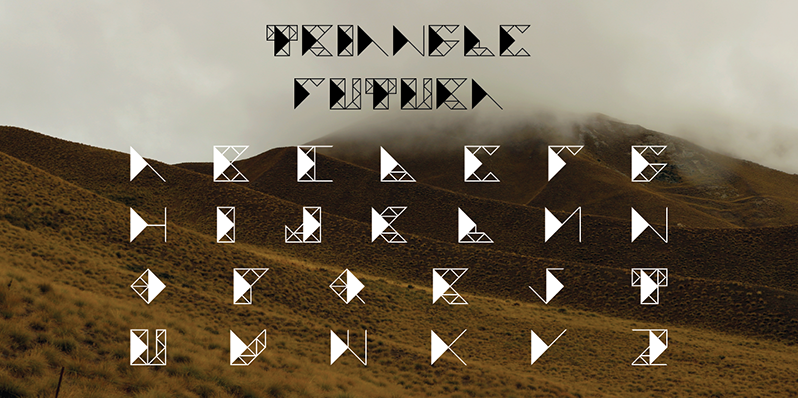
Preview and download Triangle Futura Font. Created by Stefano Chies in Techno Various styles with Free for personal use license.
Triangle futura typeface was designed with the idea on keeping the central triangle constant while the letters begin to take different shapes while browsing This typeface is perfect I guess for a video clip. USER LICENSE AGREEMENT NON-COMMERCIAL USE I consider “non-commercial” any school, research or charity project where you (or your client) are not earning money. Any other use is considered commercial. If you’re going to use my fonts for non commercial projects, just write me a email in my website or in dafont.com, telling me for what you’re using it: https://www.stethesign.com/contact If possible, include what for, and if you’re feeling generous, I’d love to see a sample of my fonts in action! COMMERCIAL USE For commercial use please donate via Paypal! The PayPal receipt proves the commercial license. I recommend the donation sum is what you feel the font is worth to you and what you feel is right for what you’re getting from the fonts. I make less from doing this than you might think! PLEASE don’t sell my fonts or claim it as your own; don’t edit or rename my fonts; don’t redistribute my fonts. Thank you for your support! |